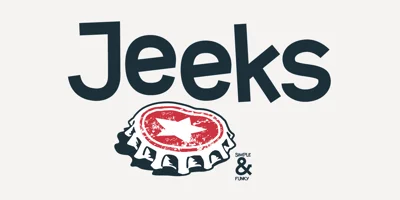
Jeeks Font is ideal for quirky design applications including tech startup branding, gaming company logos, geek culture merchandise, comic convention signage, programming bootcamp materials, innovation lab graphics, creative tech projects, and nerdy lifestyle marketing. This distinctive typeface captures the playful intelligence and unconventional spirit of geek culture through unique letterforms that embody curiosity, innovation, and intellectual creativity.
What makes Jeeks Font exciting is its perfect representation of geek culture aesthetics with clever letterforms that celebrate intellectual curiosity and technological passion through playful yet sophisticated design elements. The font features distinctive characteristics with subtle tech-inspired details that communicate intelligence and creative problem-solving. Its geeky character appeals to audiences who embrace technology, innovation, and intellectual pursuits with enthusiasm.
The Jeeks Font family includes various tech-inspired styles such as Regular, Bold, Light, and digital alternates that enhance the geek culture aesthetic. These clever options provide comprehensive design solutions for creating authentic tech brand identities that celebrate intellectual curiosity and innovative thinking in contemporary digital culture.
This specialized geek typeface brings genuine tech culture authenticity to contemporary design projects. Technology companies and innovation-focused brands choose Jeeks Font for its exceptional ability to communicate intellectual sophistication and creative technical thinking. The font's geek inspiration makes it perfect for tech startups, coding academies, and innovation hubs that want to project intellectual curiosity and technological expertise. Its clever character ensures memorable brand recognition while maintaining the authentic aesthetic that defines exceptional geek-focused design work.